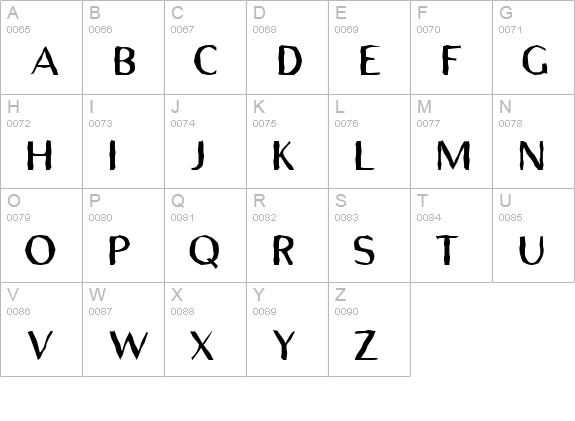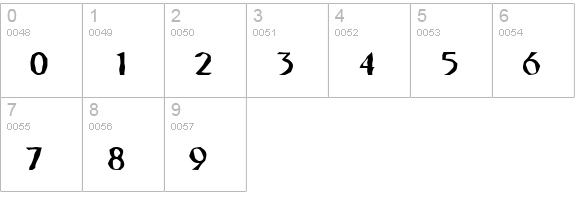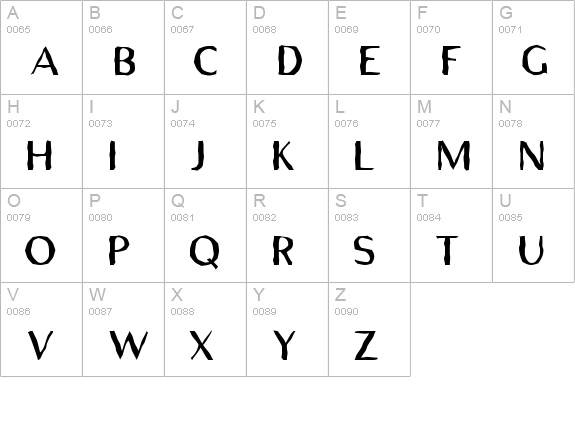
TRGrunge Font Details
Introducing TRGrunge font, a bold and gritty typeface that perfectly captures the rebellious spirit of the grunge era. This font is your ultimate tool for adding a touch of edginess and rawness to your designs. TRGrunge font boasts a unique blend of jagged edges, distressed textures, and uneven letterforms, giving it an unmistakable grunge aesthetic. With its worn and weathered appearance, this font evokes a sense of nostalgia, harking back to the alternative music scene of the 1990s. But what makes TRGrunge font even more incredible is that it is absolutely free! Yes, you read that right. This font is freely available to download at FontsMarket.com, allowing you to unleash your creativity without any cost. It's a remarkable opportunity to access a high-quality grunge font without breaking the bank. Whether you're designing album covers, posters, logos, or any other project that requires a rebellious vibe, TRGrunge font will be your go-to choice. Its versatility allows it to work seamlessly with various design styles, from vintage to contemporary. So, don't miss out on this amazing grunge font. Head over to FontsMarket.com and grab your free download of TRGrunge font today. Let your creativity run wild and infuse your designs with the raw energy and attitude that only TRGrunge font can deliver.